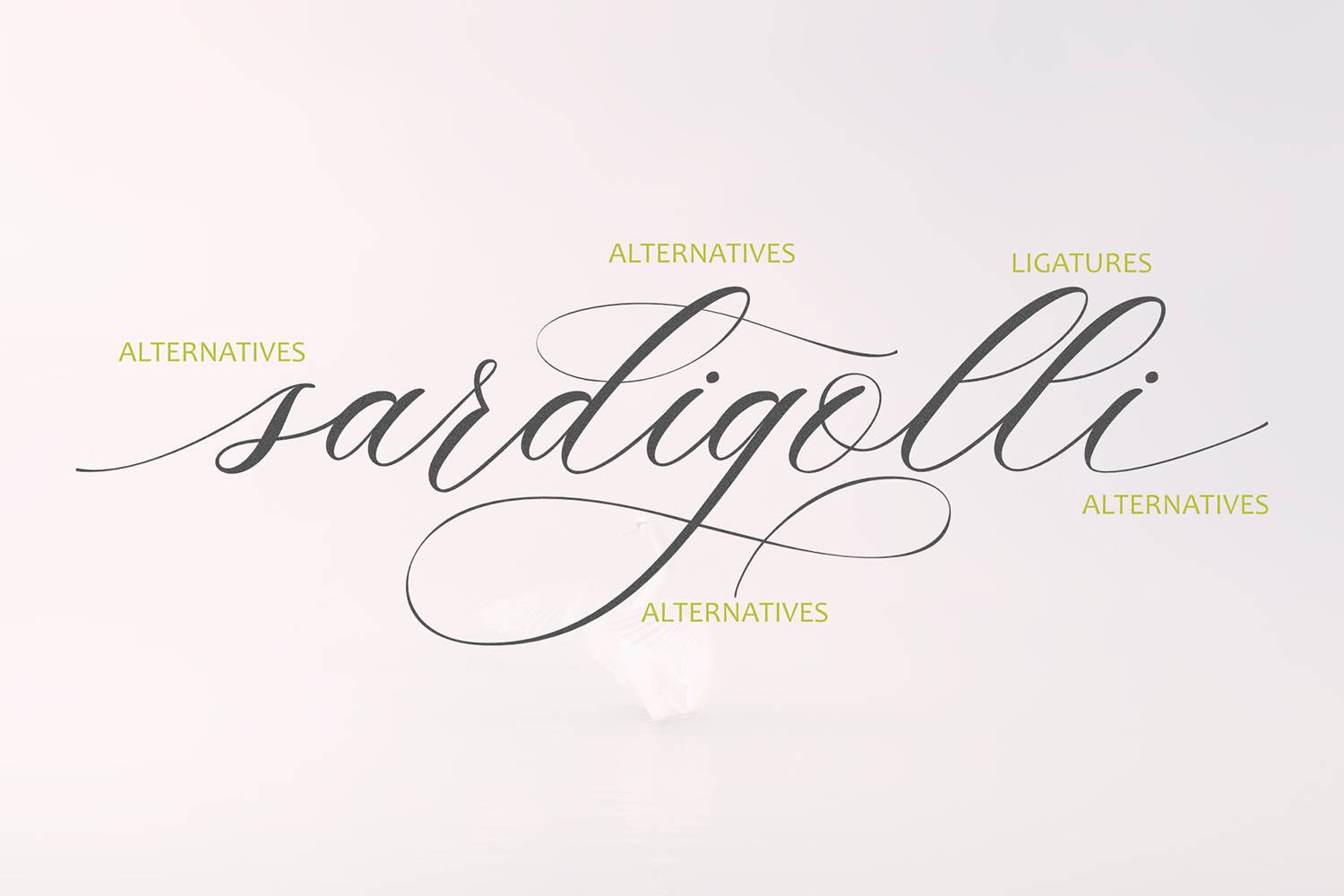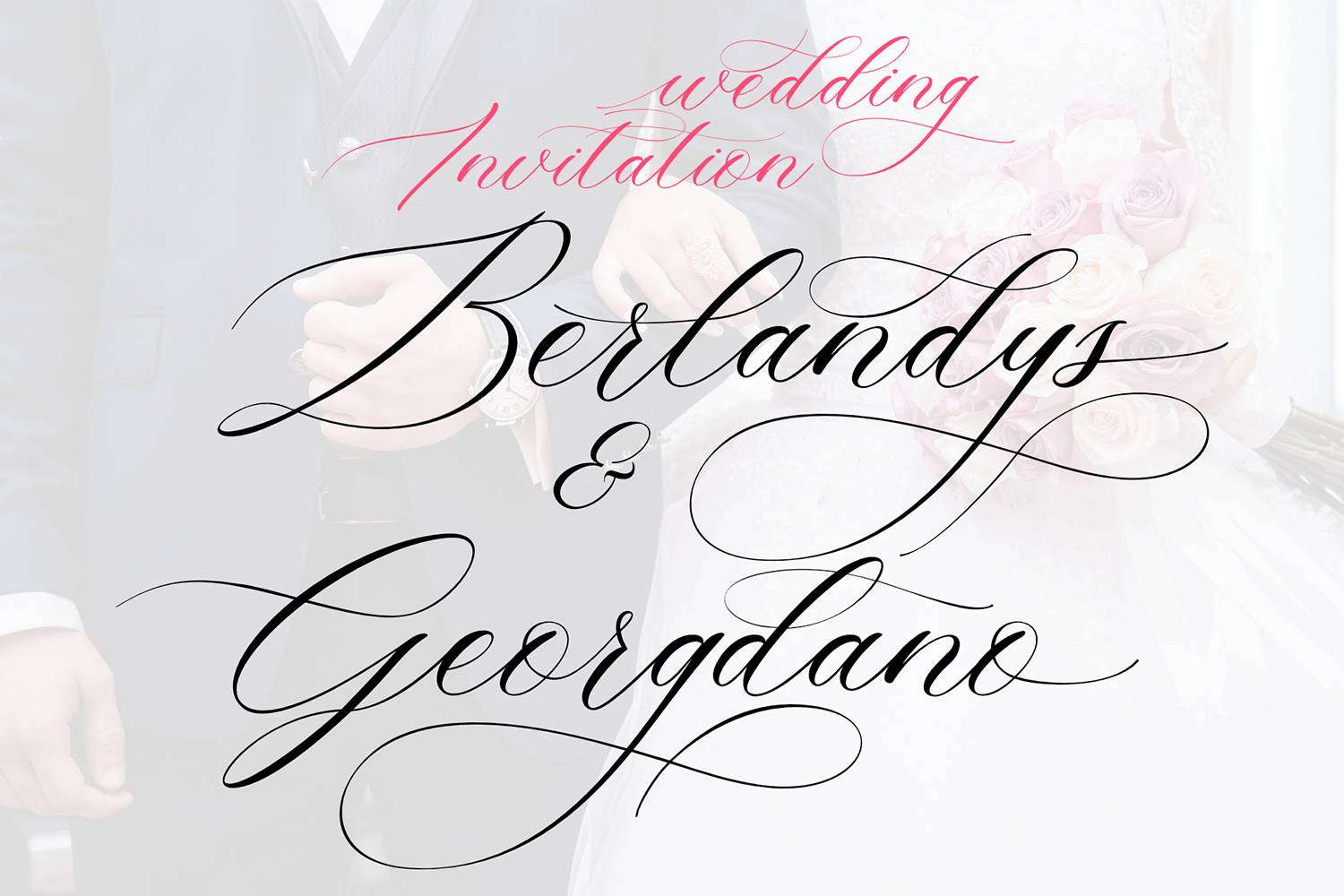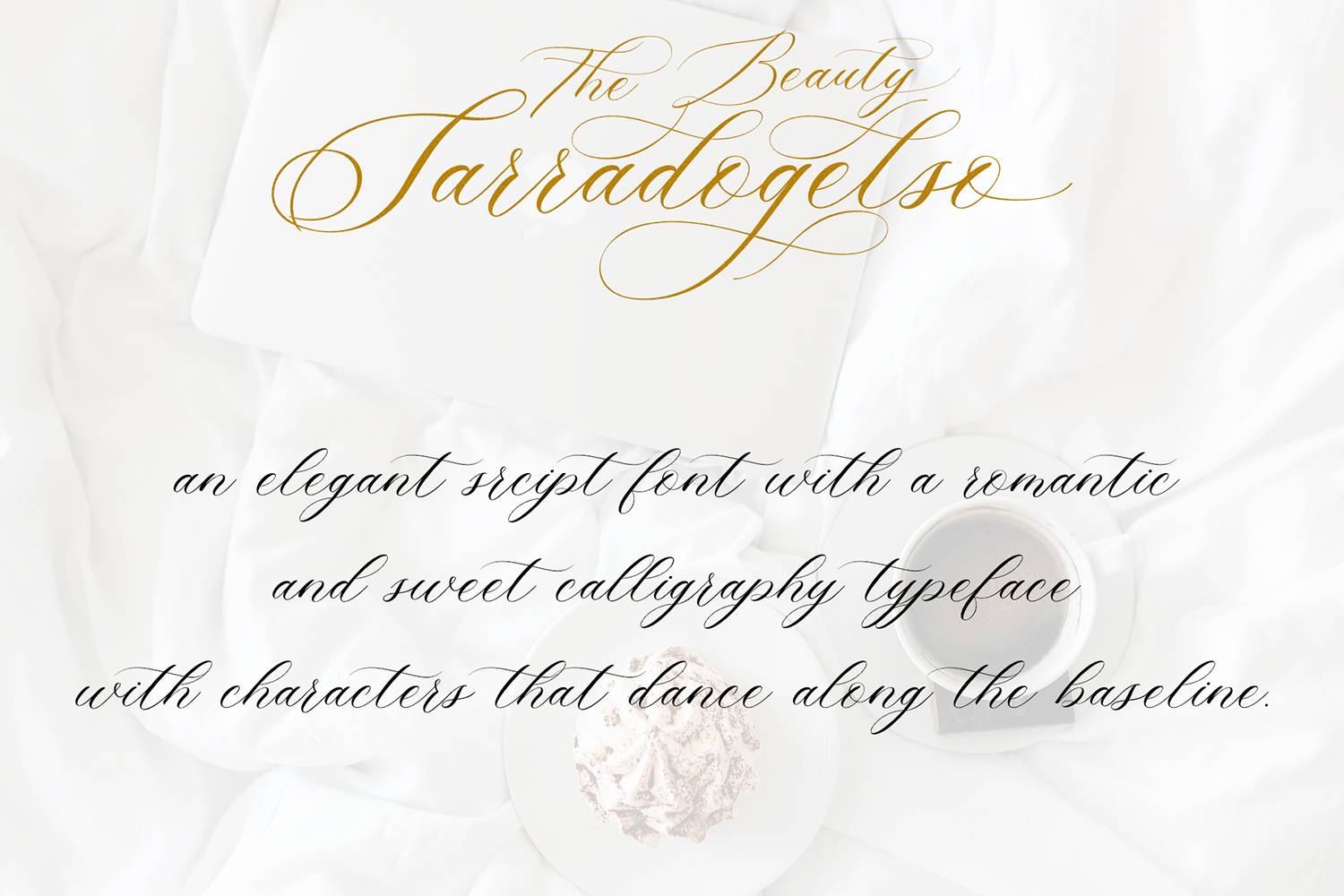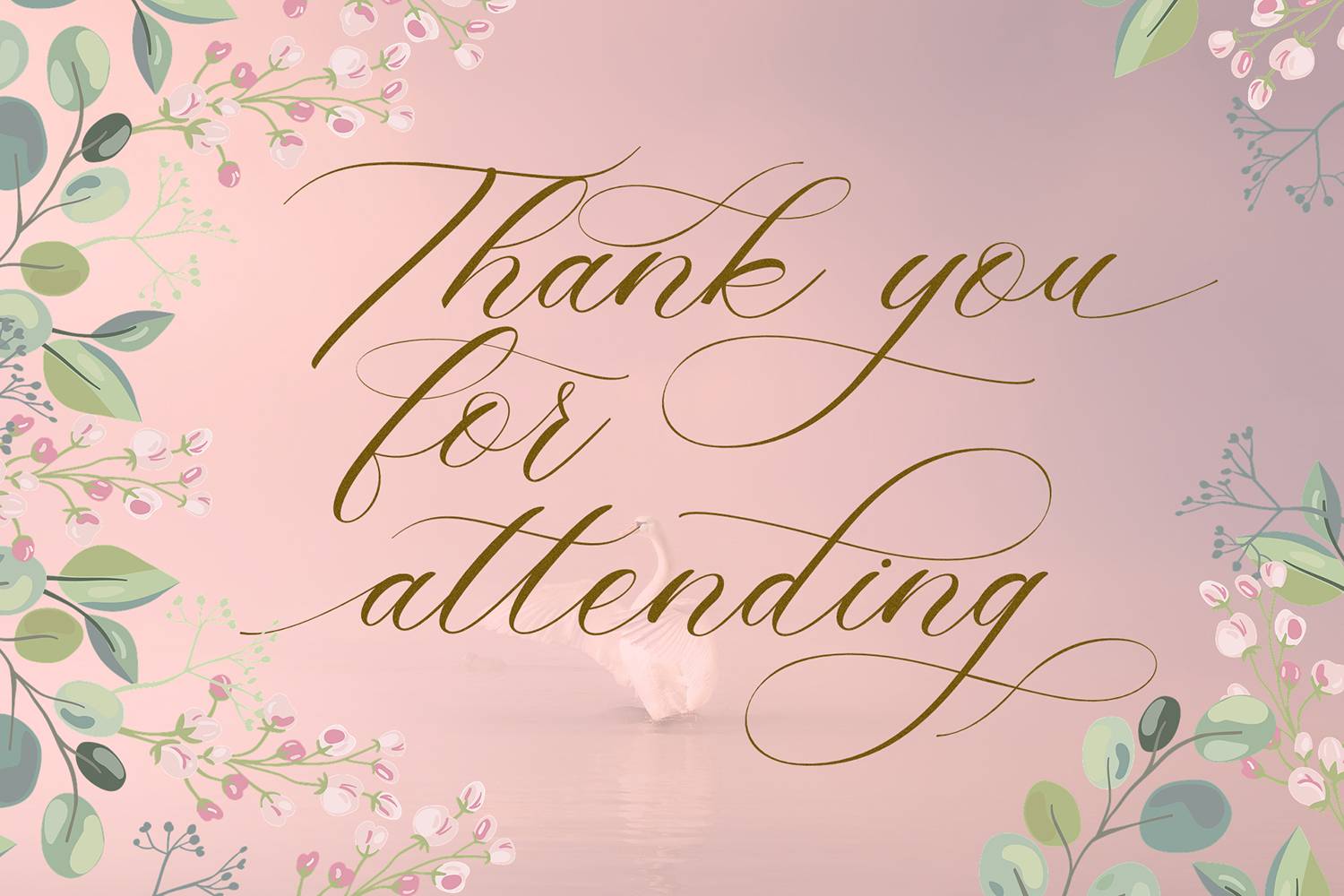
Sarradogelso is an elegant, delicate script font characterized by its thin, flowing strokes and graceful, handwritten style. Its high contrast with fine lines and sweeping curves gives it a sophisticated, personal touch, perfect for invitations, luxury branding, and any design seeking a refined, classic feel. This font shines best in decorative uses where elegance and artistry are key.
Sarradogelso Font
About Sarradogelso Font